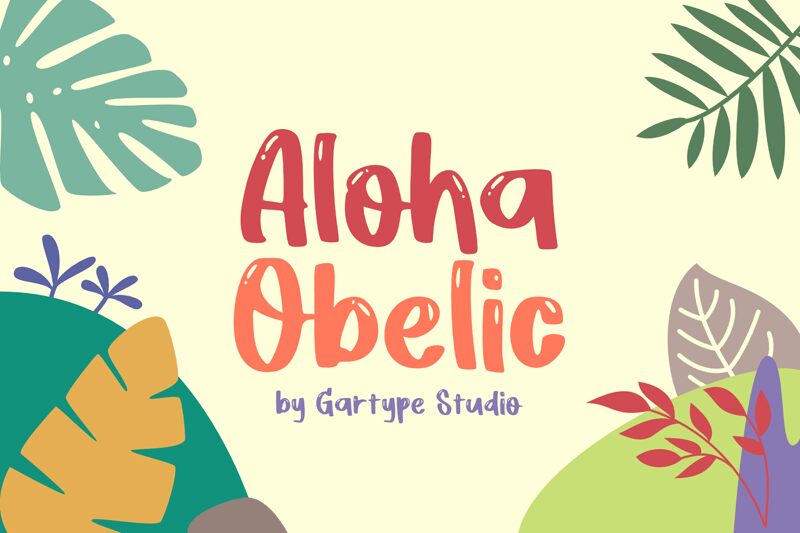
Aloha Obelic GT font is a lovely cartoon typeface designed by Gumilang Anggara Ruslan of Gartype Studio.
Aloha Obelic GT Demo
Gartype Studio
Gumilang Anggara Ruslan